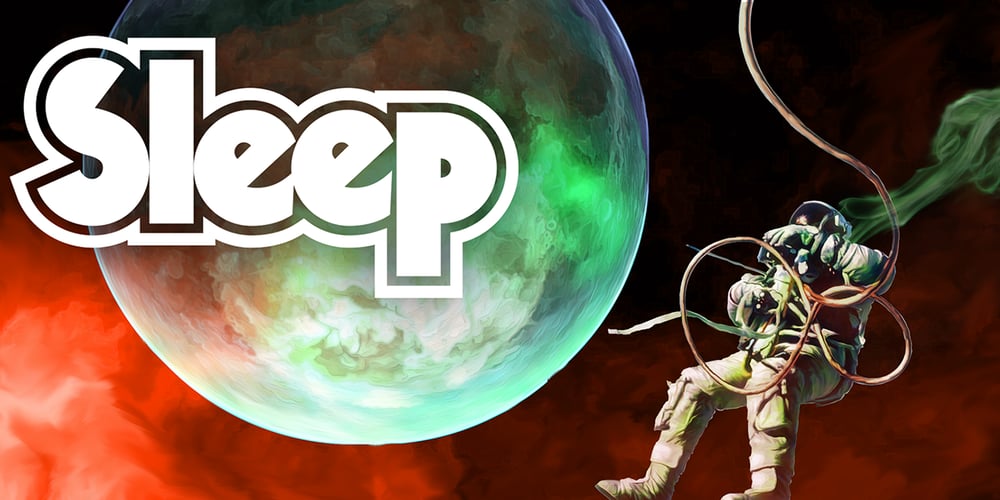
VolumeFour Font Family was designed by Ryan Corey and published by Ryan Corey. VolumeFour contains 1 styles and family package options. VolumeFour is a heavy, geometric sans-serif display face inspired by the custom lettering which adorns Black Sabbath’s groundbreaking “Vol 4.” Its bold forms and naturally tight spacing evoke the era which spawned such classics as “Snowblind” and “Supernaut”, bringing this aesthetic to a contemporary audience.